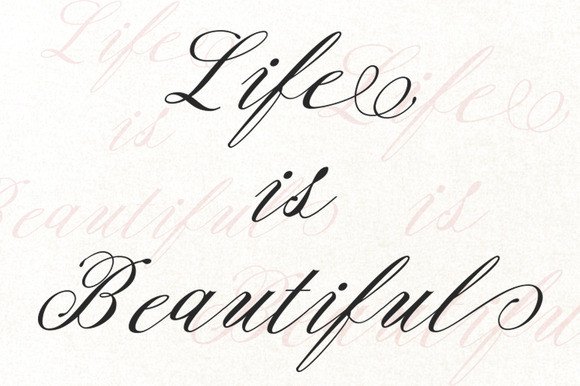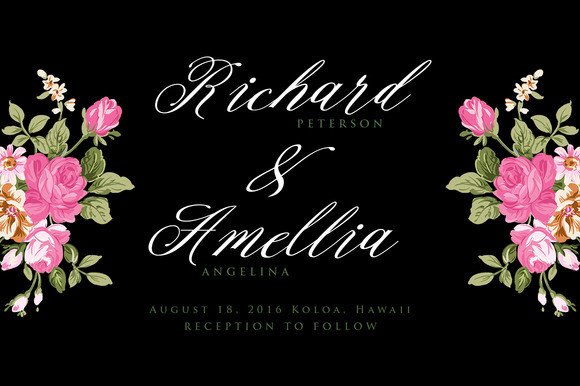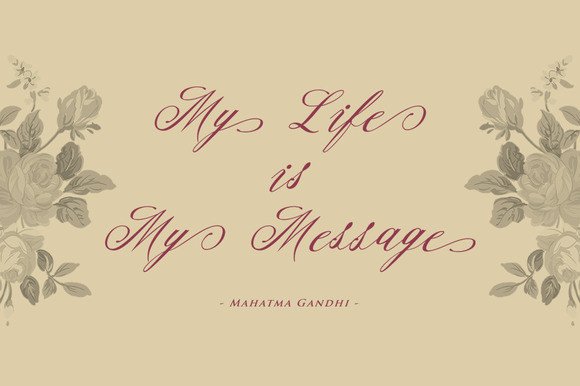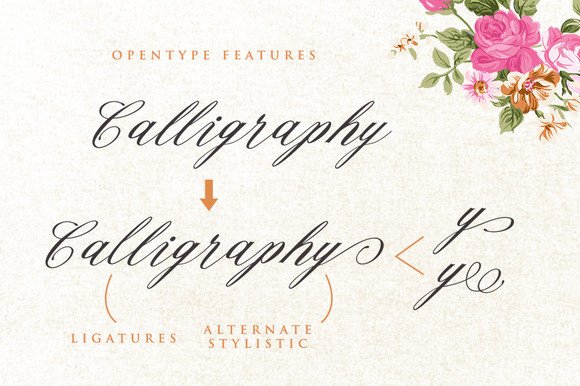
As a designer, there’s nothing quite like the thrill of discovering a new font that perfectly captures the essence of your vision. For me, it’s the moment when a font comes together with your ideas, and suddenly, your project feels alive. You know you’ve found the one.
That’s exactly what happens when you meet the Cellicia Font – a delicate and stunning script font that’s perfect for adding a touch of elegance to your print projects. With its thin and fine detailing, this beautiful font is sure to elevate your designs and leave a lasting impression. Whether you’re working on a wedding invitation, a birthday card, or a branding project, the Cellicia Font is an invaluable asset for any designer looking to add a personal touch.
With its versatility and sophistication, the Cellicia Font is a valuable addition to any designer’s toolkit. Its unique style and character make it the perfect choice for a wide range of creative projects, from formal events to everyday communications. Whether you’re a seasoned pro or just starting out, the Cellicia Font is sure to become your go-to script font for all your design needs.
Cellicia Font Key Features
- Font Family: Cellicia Font is a modern script font with a unique, elegant feel.
- Character Count: The font contains 600+ glyphs, including a wide range of language support.
- Unique Characteristics: Features a flowing, handwritten style with subtle flourishes and a touch of sophistication.
Cellicia Font Review
Overall, I think Cellicia is a beautiful, elegant font that can add a touch of sophistication to any design project. ✨ The flowing lines and rounded shapes give it a soft, feminine feel that’s perfect for fashion, beauty, or lifestyle brands. I love how it works well in both headline and body text applications.
Some of the standout features of Cellicia include:
- ✨ Elegant, flowing lines that add a touch of sophistication to any design
- ✨ Soft, rounded shapes that give it a feminine feel
- ✨ Versatile and works well in both headline and body text applications
- ⚠️ The font may not be suitable for bold, edgy brands or those with a more masculine aesthetic
- ⚠️ The italic version of the font can look a bit sloppy or inconsistent in certain applications
Overall, I think Cellicia is a beautiful font that can add a touch of elegance to any design project. While it may not be suitable for every brand or application, it’s definitely worth considering for those looking for a soft, feminine feel.
Tips: Use Cellicia Font for headings and titles to add a touch of elegance to your designs. Experiment with different font sizes and colors to create visual interest.
Tips: Use Cellicia Font for typography-heavy designs, such as posters or brochures. Experiment with layer styles and effects to add depth and interest to your text.
Tips: Use Cellicia Font for presentations and documents where you want to convey a sense of professionalism and sophistication. Experiment with different font combinations to create a unique look.
Cellicia Font is ideal for:
- Posters and flyers
- Editorial and publishing designs
Comparison to Cellicia Font: While Cellicia Font has a modern, sophisticated feel, Playfair Display has a more traditional, vintage look. Playfair Display is ideal for creating a sense of grandeur and luxury, whereas Cellicia Font is better suited for modern, minimalist designs.
Great Vibes is a beautiful, modern script font ideal for creative projects, quotes, and titles. Its flowing design makes it perfect for capturing a sense of movement and energy. When to use: Creative projects, quotes, titles, and social media graphics.
Comparison to Cellicia Font: While Cellicia Font has a sleek, modern feel, Great Vibes has a more playful, expressive design. Great Vibes is ideal for adding a touch of whimsy and personality to designs, whereas Cellicia Font is better suited for clean, minimalist layouts.
Q: What is the recommended font size for optimal readability with Cellicia Font?
The recommended font size for optimal readability with the Cellicia Font is between 12pt and 14pt for body text. However, this may vary depending on the specific application and design context. It’s always a good idea to test different font sizes and styles to ensure the best results.